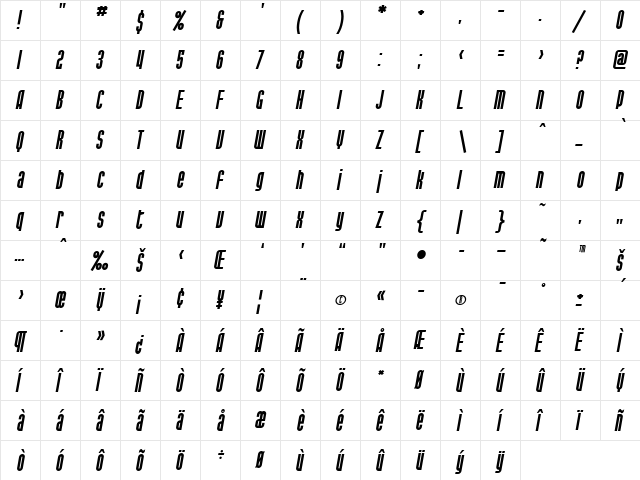
SF Port McKenzie Italic
Design Context for SF Port McKenzie Typeface
SF Port McKenzie is a composed and adaptable typeface that performs quietly and consistently across a wide range of design contexts. The dynamic lean of this cut emphasises speed and emphasis in any layout.